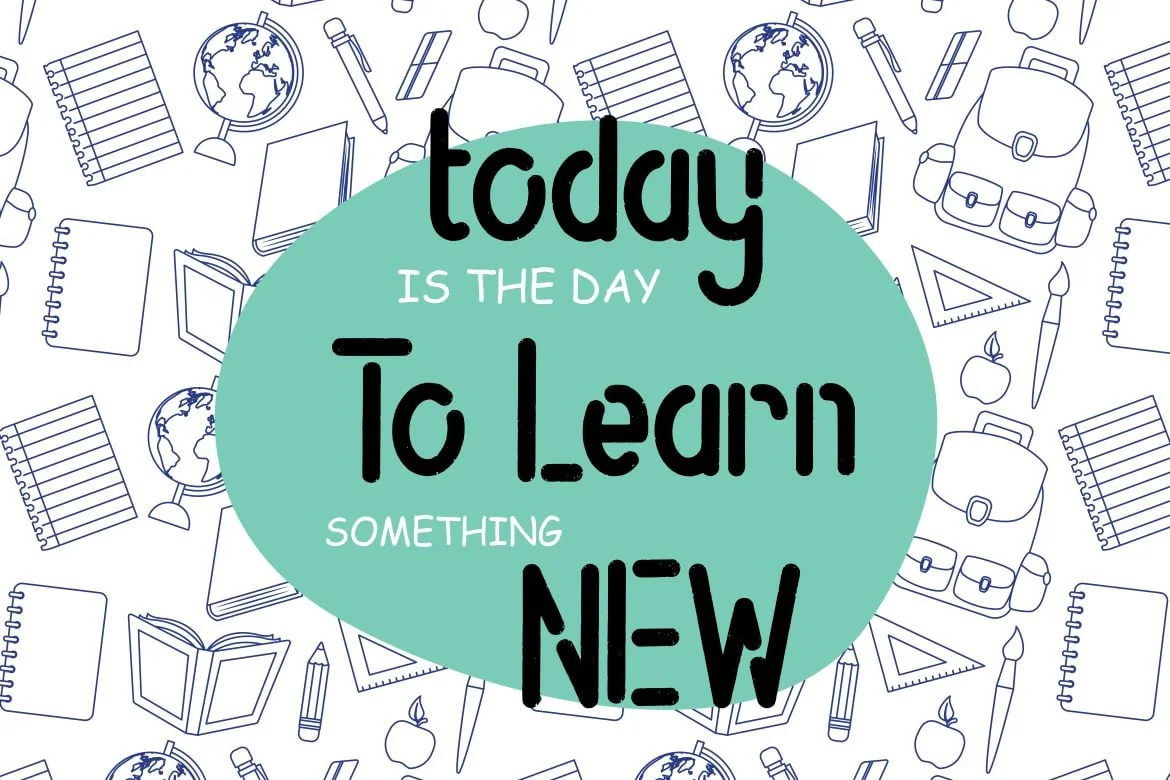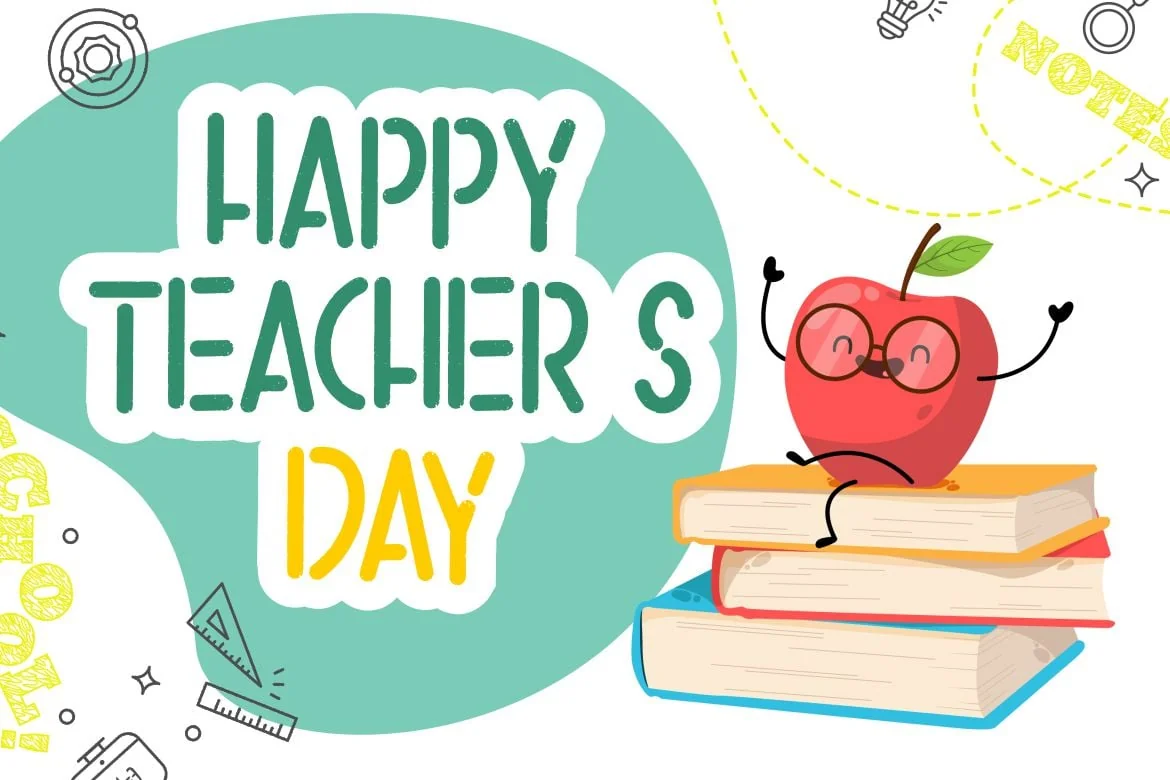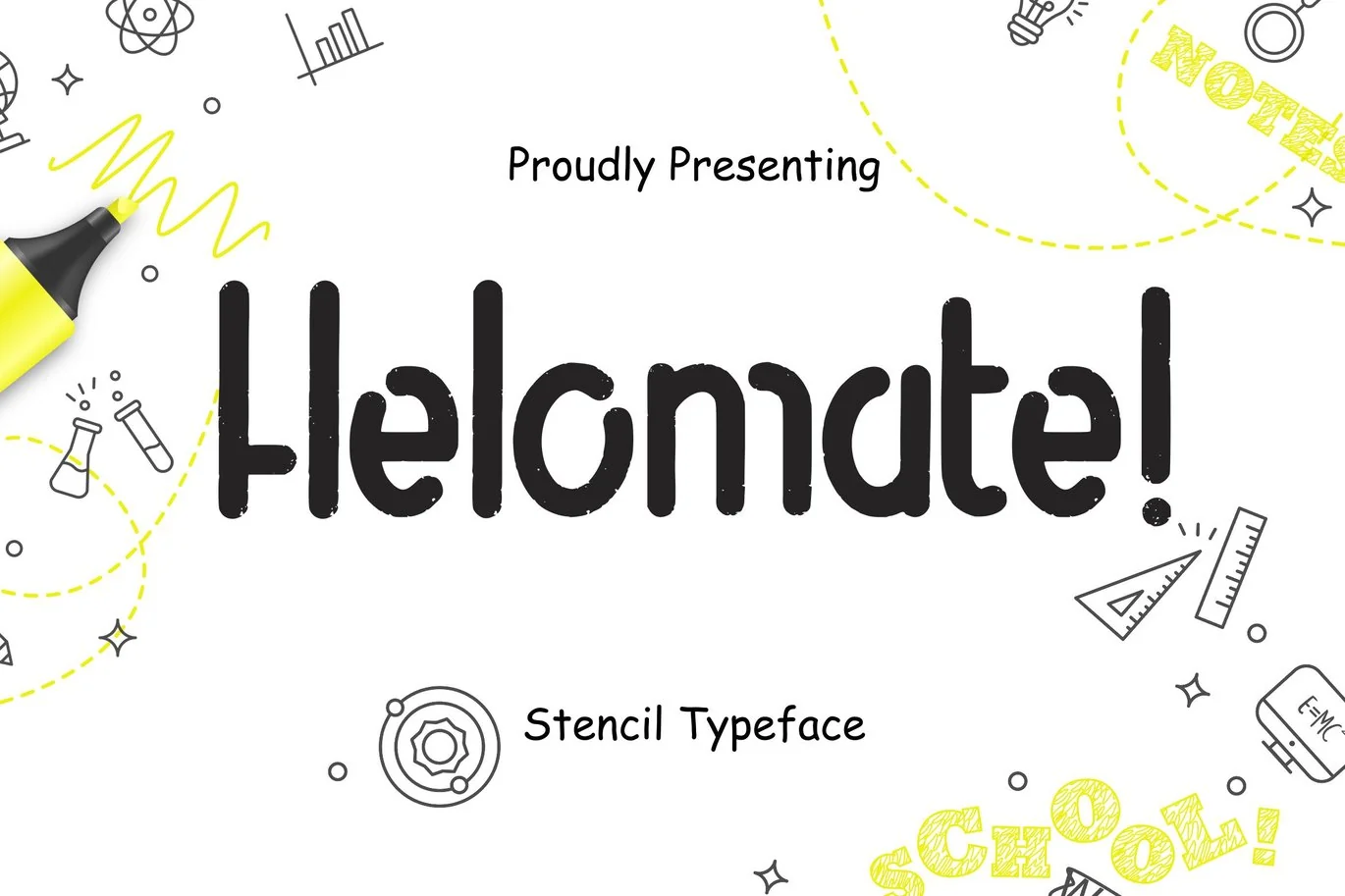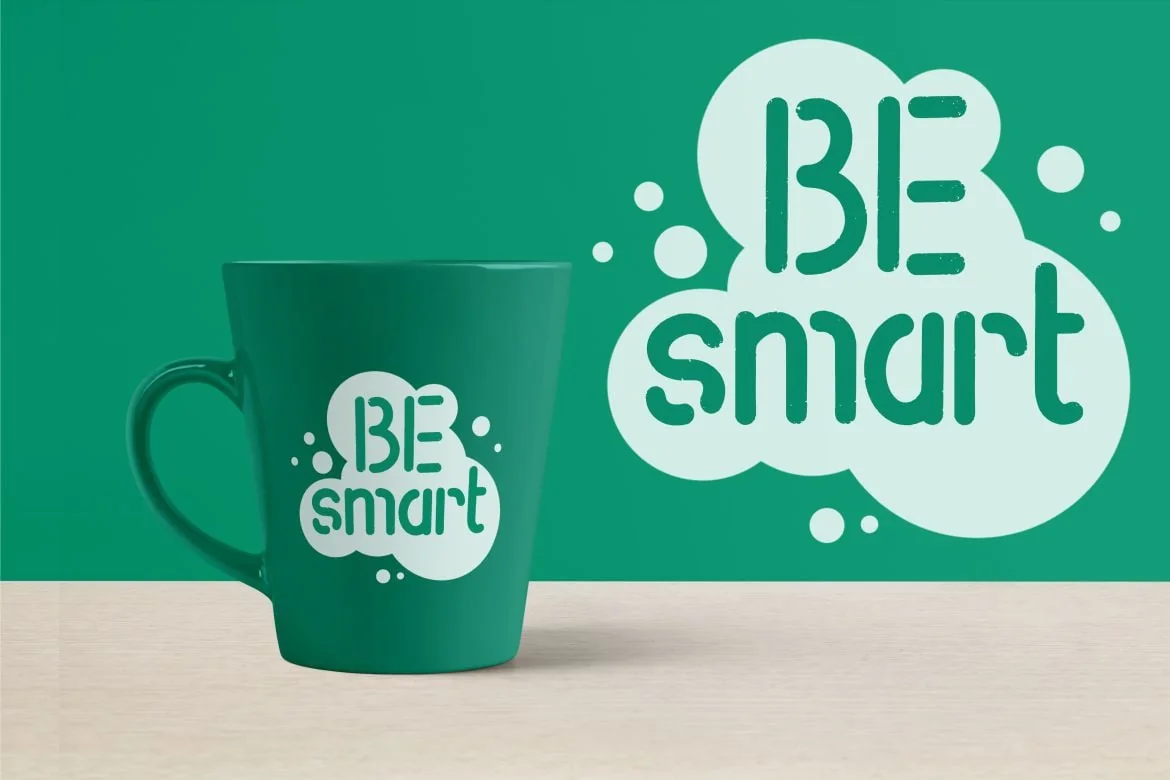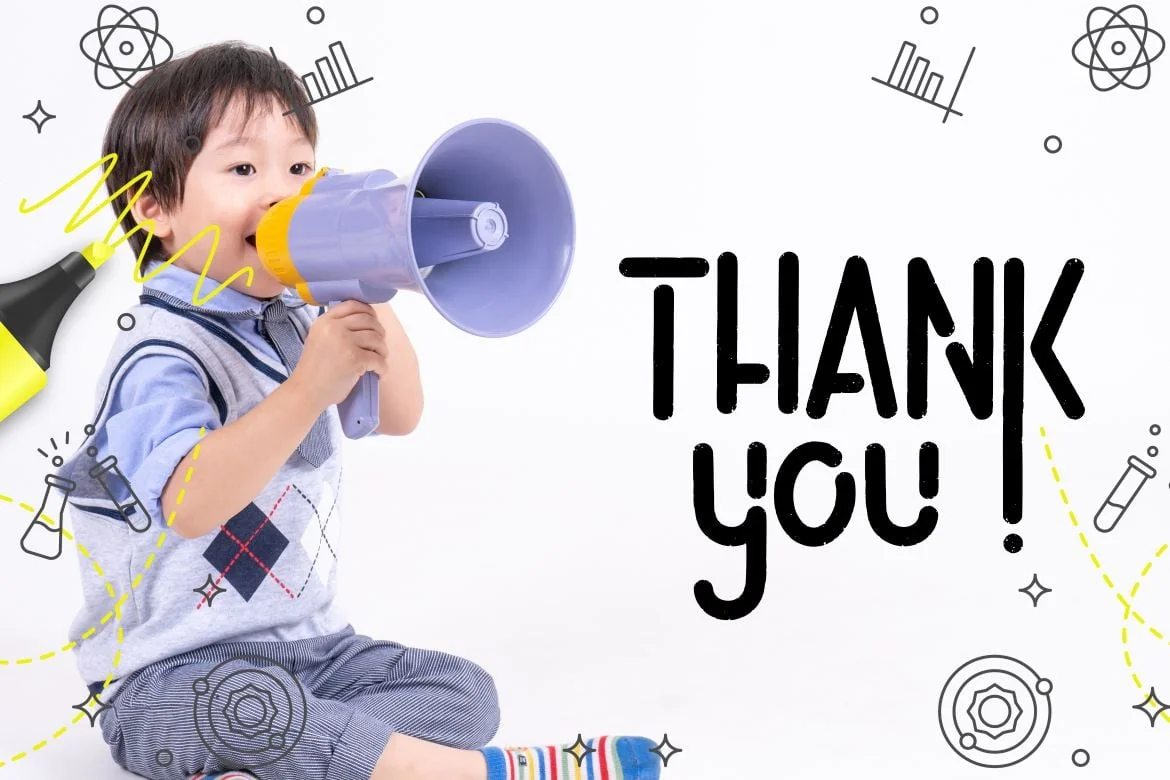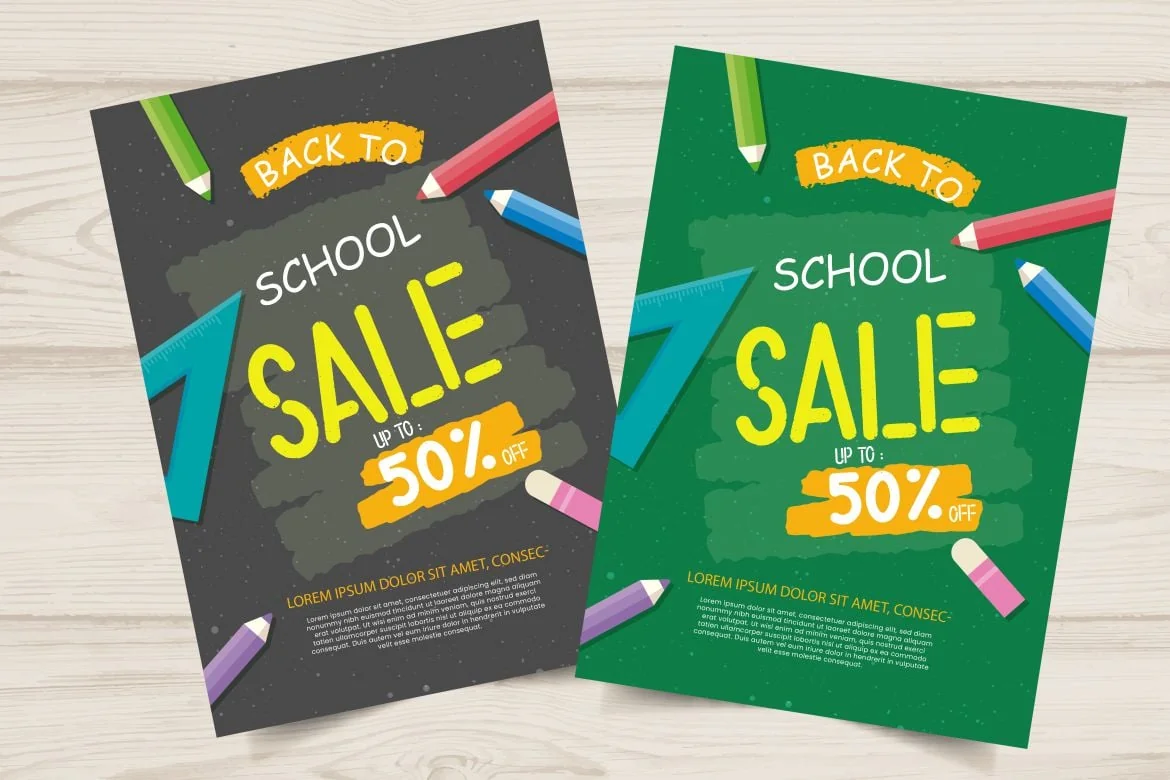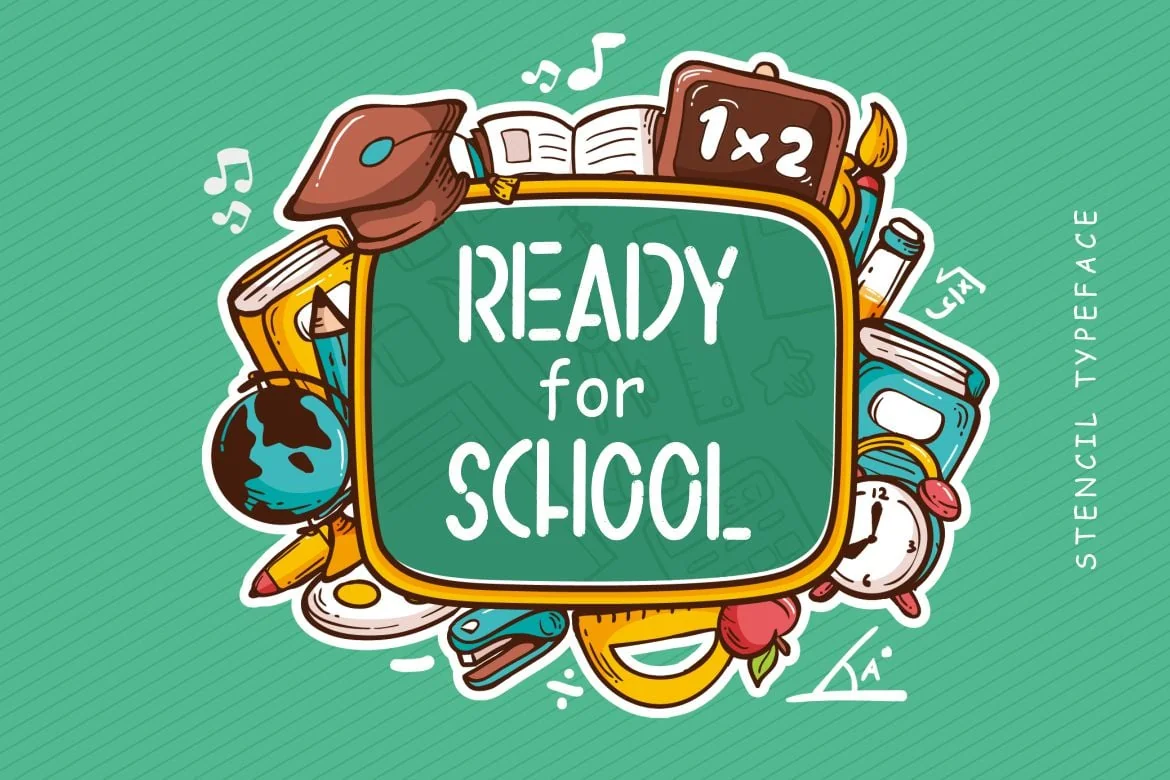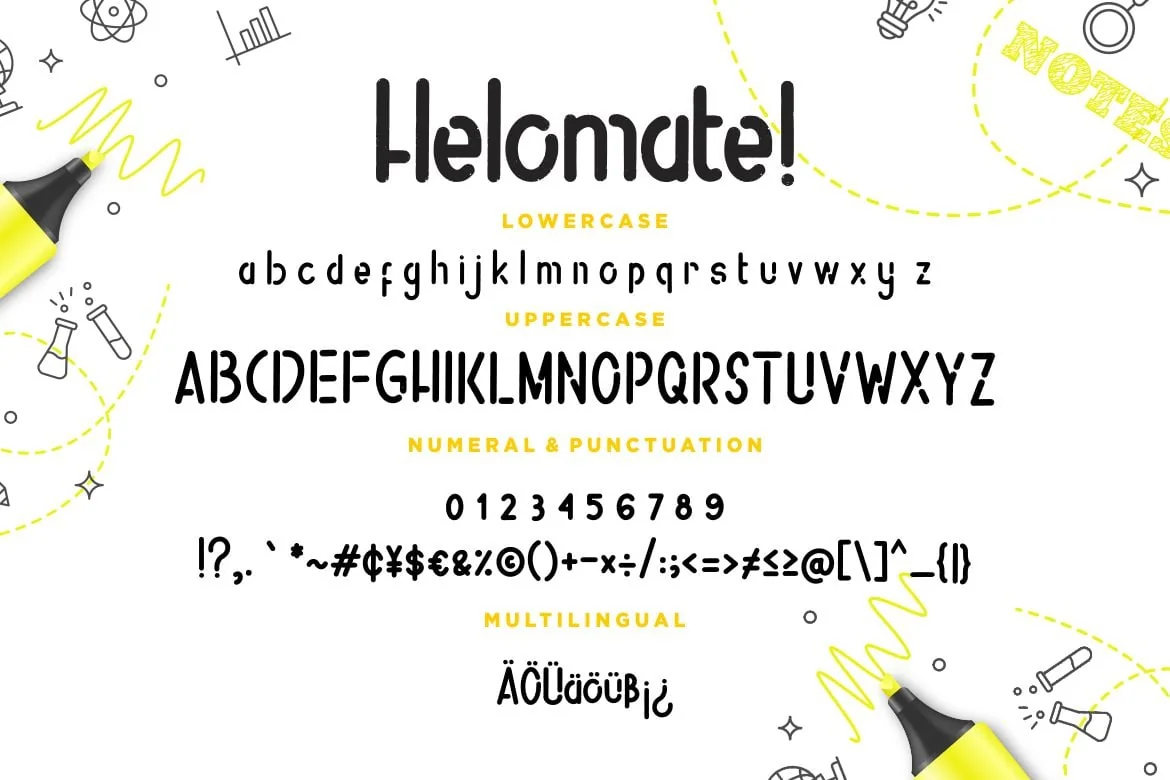
Helomate Stencil Advertisement Font
Helomate is a stencil font with personal touch of natural movement.
Helomate is perfect for branding projects, logo, wedding designs, social media posts, advertisements, product packaging, product designs, label, photography, watermark, invitation, stationery and any projects that need handwriting taste.
- Fonts include multilingual support for; ä ö ü Ä Ö Ü ß ¿ ¡